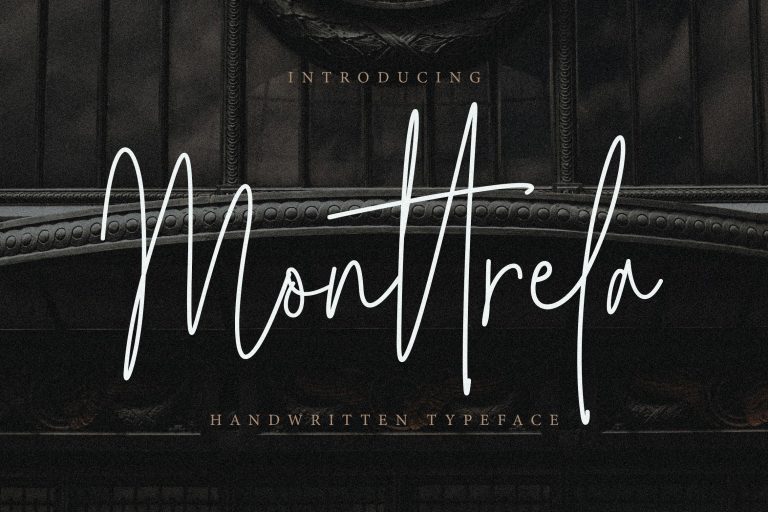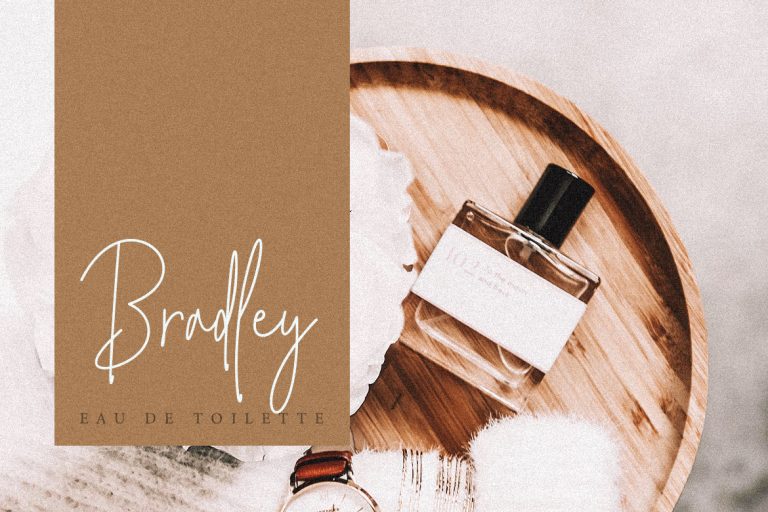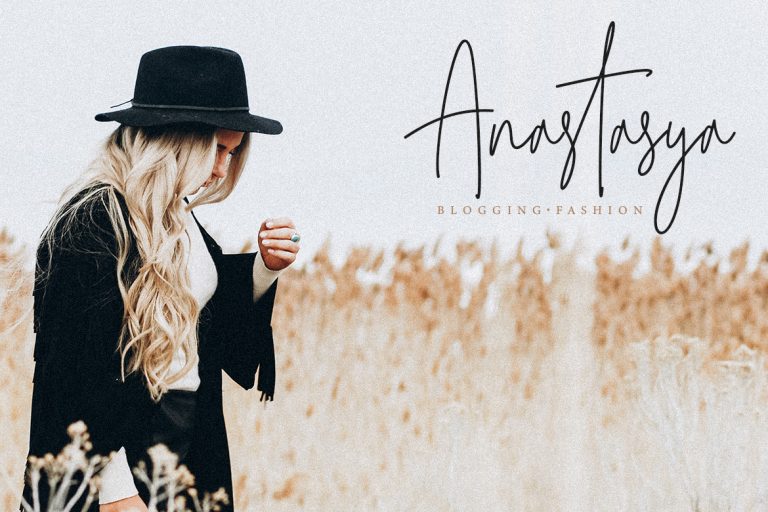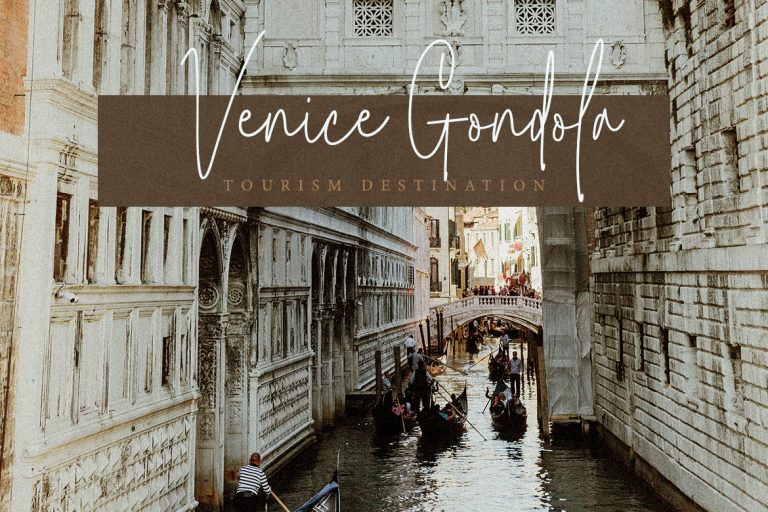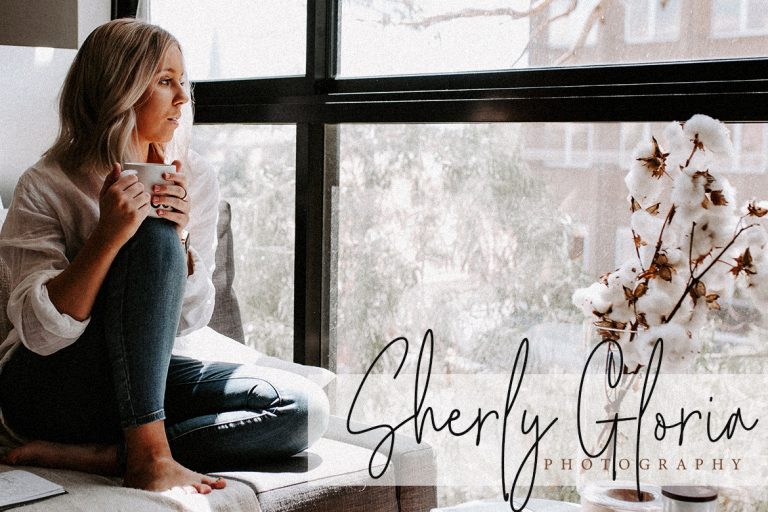
Monttrela Handwritten Font
Monttrela is a beautiful high fashion font with a stylish handwritten and script style make this font looks natural, classy, natural and perfect for any awesome projects that need handwriting taste.
Monttrela is perfect for branding projects, logo, wedding designs, social media posts, advertisements, product packaging, product designs, label, photography, watermark, invitation, stationery and any projects that need handwriting taste.